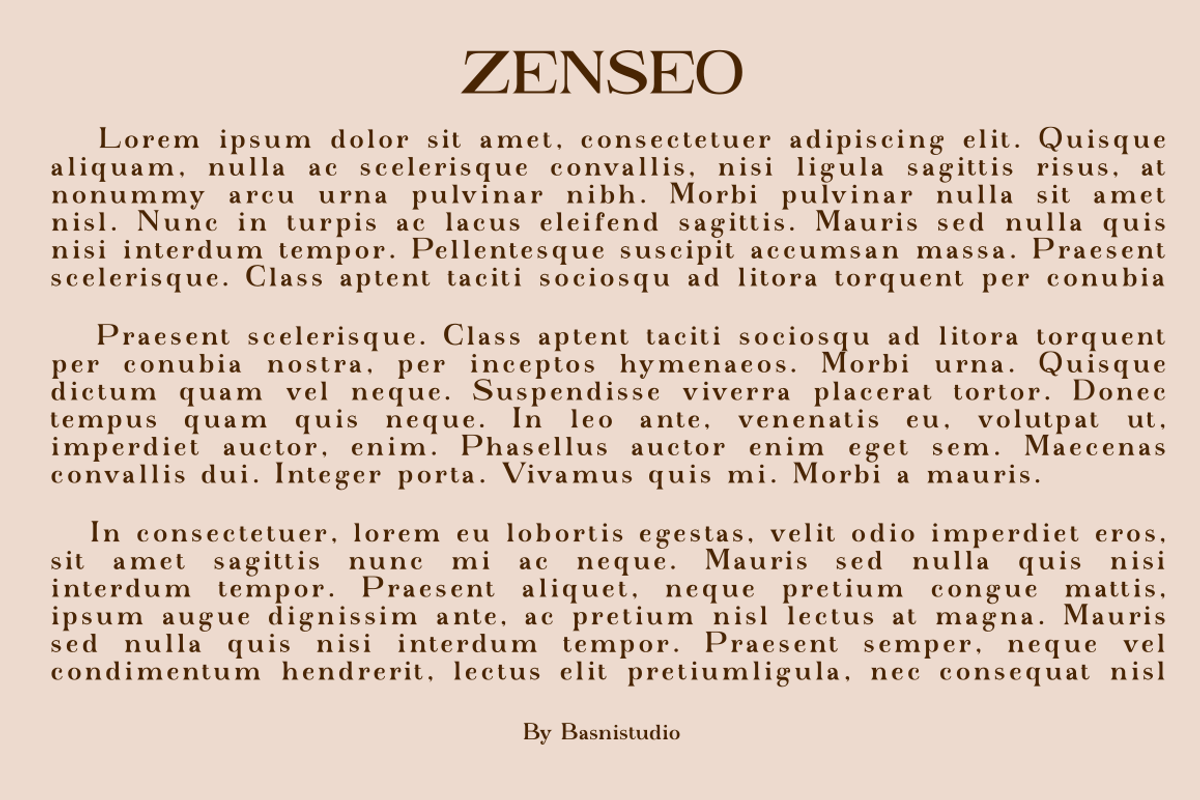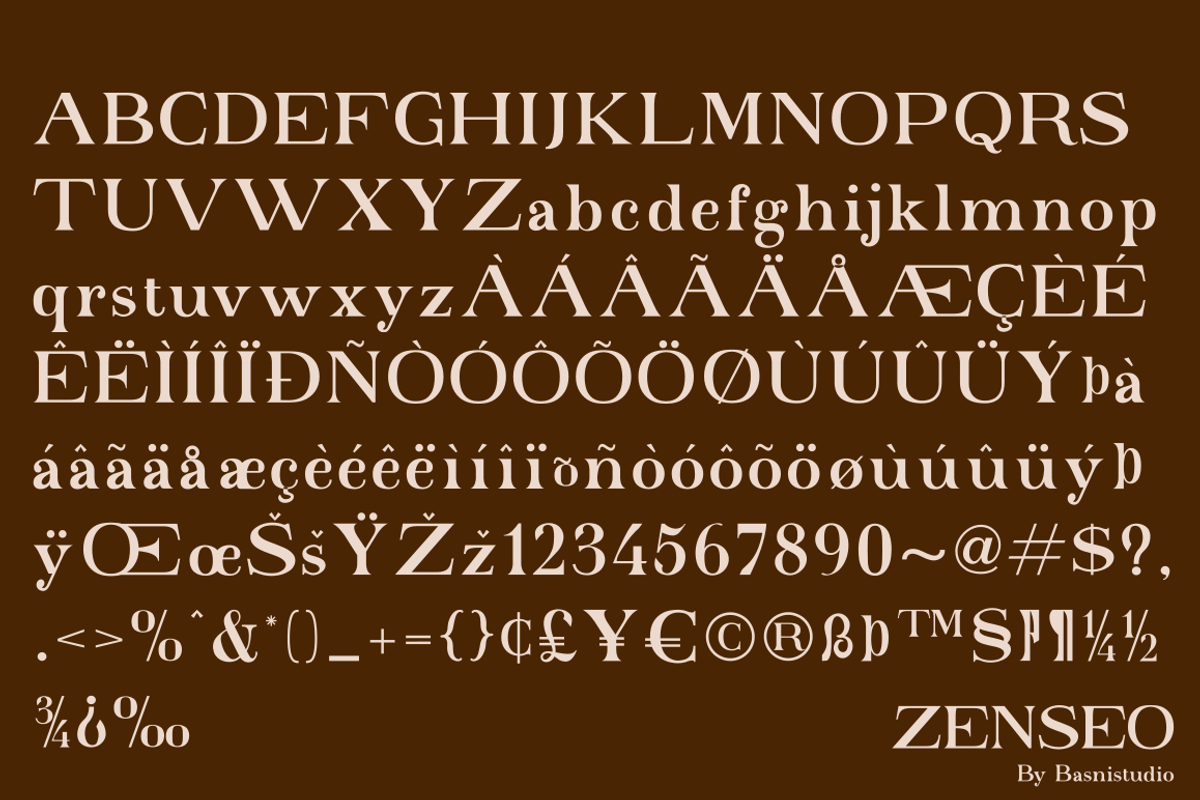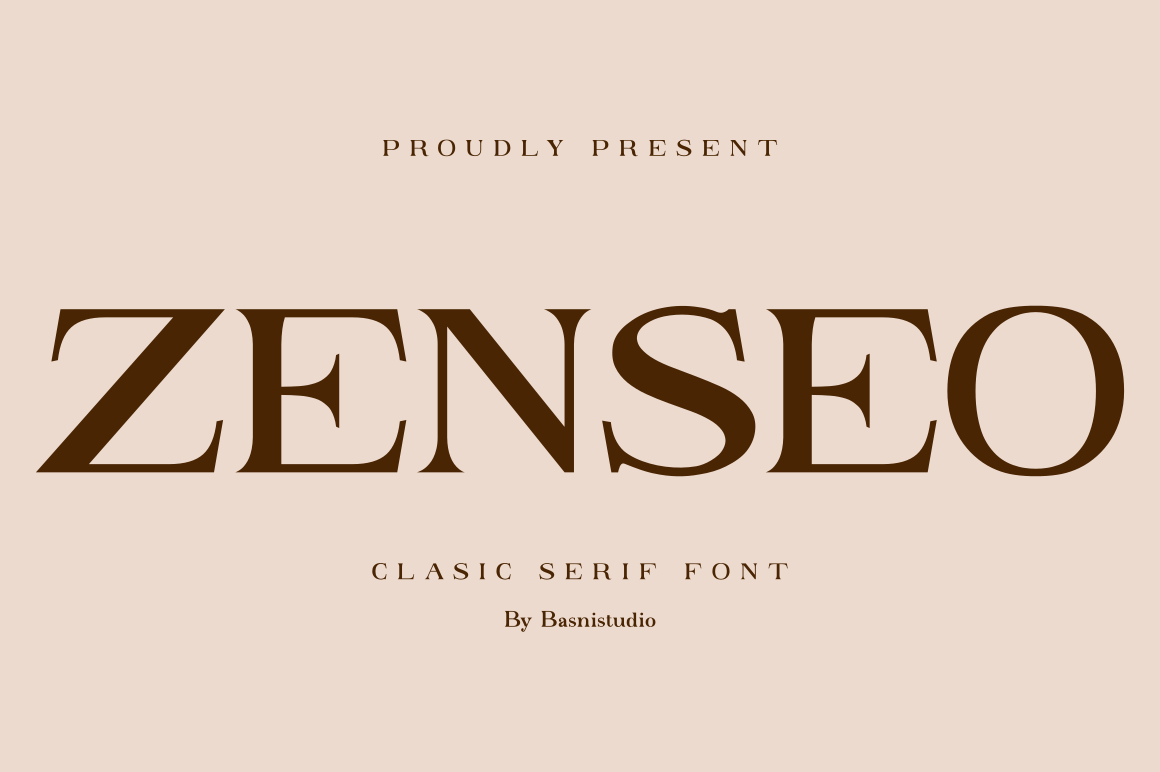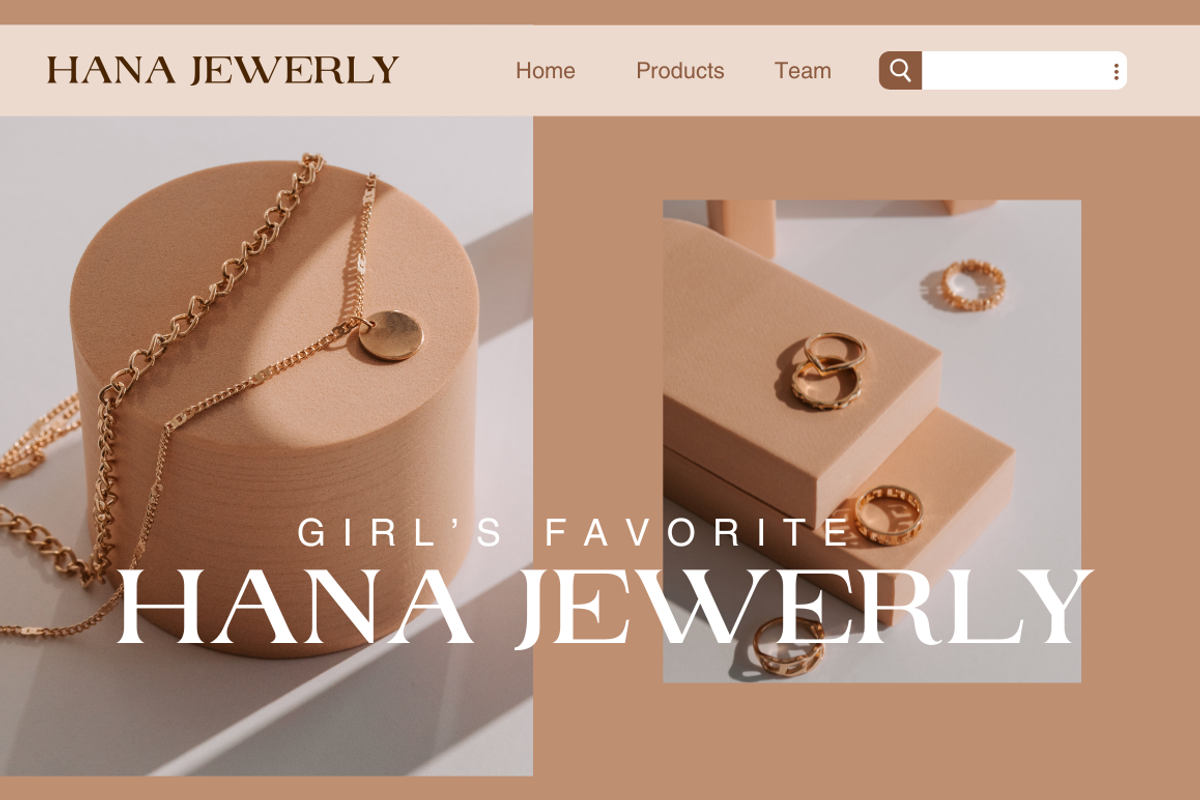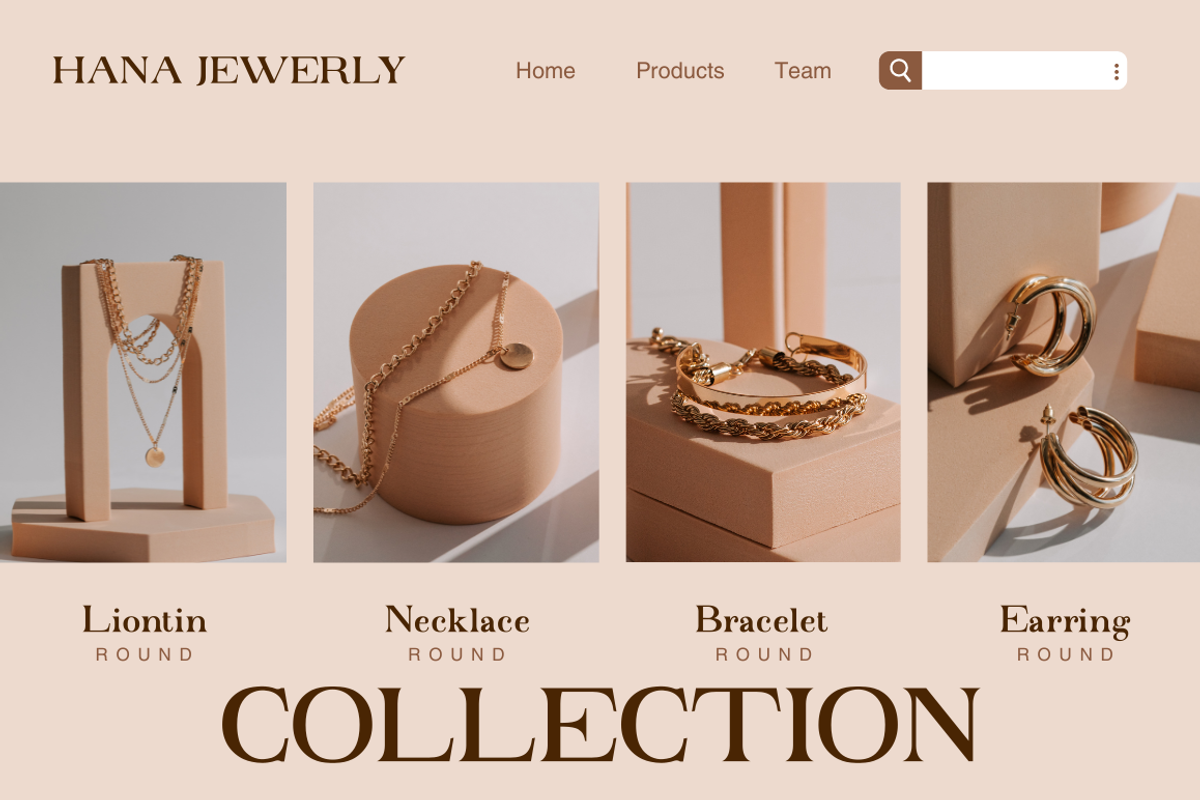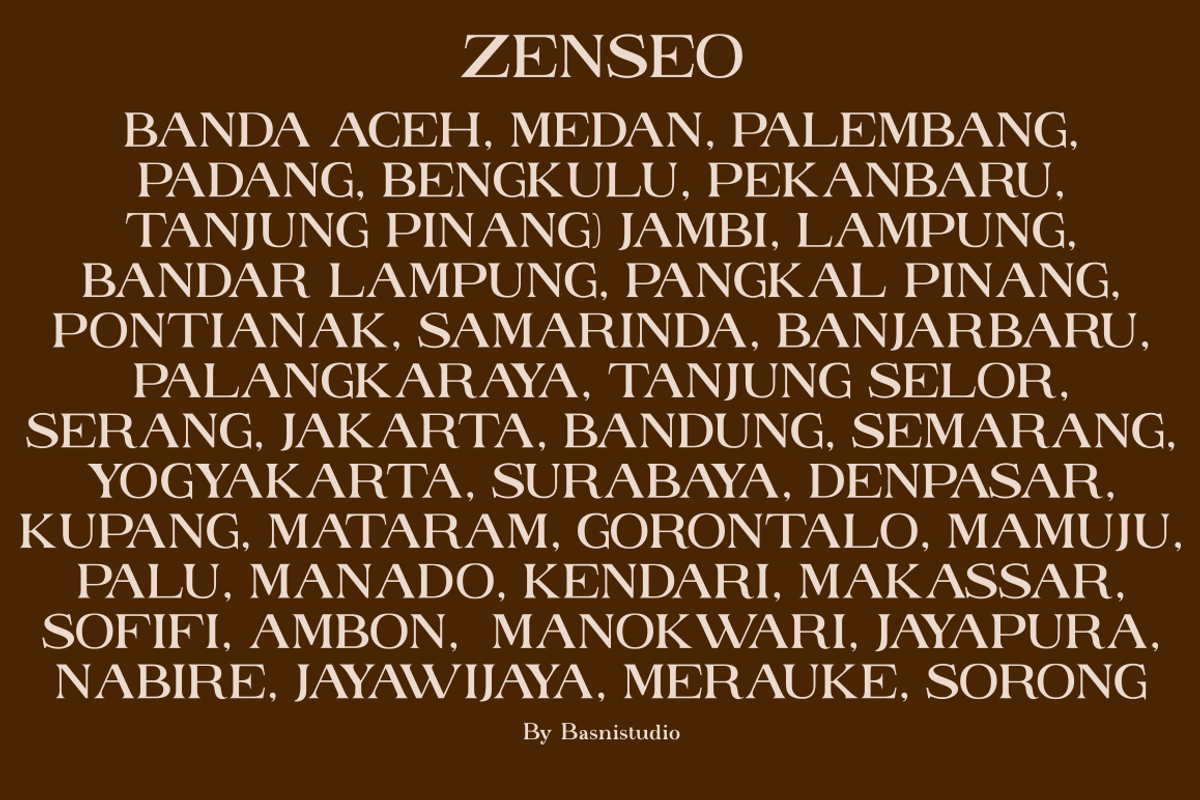
ZENSEO Clasic Serif Font
ZENSEO is an Clasic serif font that exudes unparalleled luxury. Meticulously crafted, each letter radiates captivating sophistication, making it ideal for design projects that prioritize a luxurious and exclusive aesthetic.
ZENSEO delivers a strong and refined impression, perfect for headlines, titles, or other design elements requiring a bold emphasis.